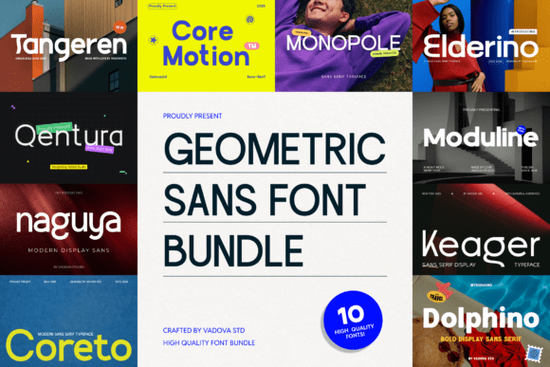
The Geometric Sans Bundle Font is a versatile collection of typefaces that combines modern design with practical functionality. If you're looking for a clean, structured font that works across multiple design projects, this bundle offers a reliable solution. With its balanced proportions and geometric roots, the Geometric Sans Bundle Font delivers a professional look that feels both contemporary and timeless.
Designed for clarity and readability, each typeface in the bundle features minimal details and strong visual impact. Whether you're working on branding, web layouts, or print materials, these fonts provide a solid foundation for your creative work. Their clean lines make them ideal for everything from digital interfaces to editorial designs, ensuring your message is communicated effectively and stylishly.
What Makes the Geometric Sans Bundle Font Unique?
The Geometric Sans Bundle Font stands out because of its balance between form and function. The typefaces are built on geometric principles, which gives them a structured and cohesive appearance. This makes them particularly useful for designers who need a consistent visual language across different media.
One of the key strengths of this font bundle is its adaptability. It works well in both display and body text scenarios, making it suitable for a wide range of applications. From website headers to product packaging, the Geometric Sans Bundle Font provides a polished and professional look without sacrificing readability.
For those who enjoy experimenting with typography, this bundle offers a variety of weights and styles. This flexibility allows you to create visual hierarchy and add depth to your designs without relying on multiple font families.
How to Use the Geometric Sans Bundle Font in Your Projects
Whether you're designing a logo, creating social media graphics, or working on a print layout, the Geometric Sans Bundle Font can enhance your work. Its clean aesthetic makes it perfect for modern branding, where simplicity and clarity are essential.
Consider using the Geometric Sans Bundle Font for headings and titles to draw attention and establish a strong visual identity. For body text, choose a lighter weight to maintain readability while keeping the overall design sleek and professional.
Why Choose This Font Bundle?
Choosing the Geometric Sans Bundle Font means investing in a set of typefaces that are both functional and aesthetically pleasing. They’re designed to meet the needs of modern designers who require a reliable and flexible typographic solution.
For those new to typography, the Geometric Sans Bundle Font is a great starting point. Its straightforward design makes it easy to use, while its versatility ensures it can grow with your design needs over time.
Ultimately, the Geometric Sans Bundle Font is a valuable addition to any designer's toolkit. Its combination of structure, clarity, and style makes it a practical choice for a wide range of projects.